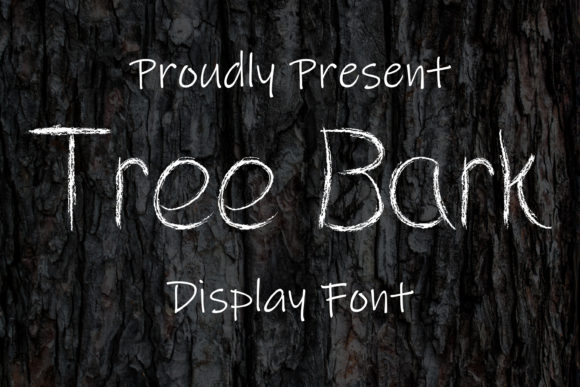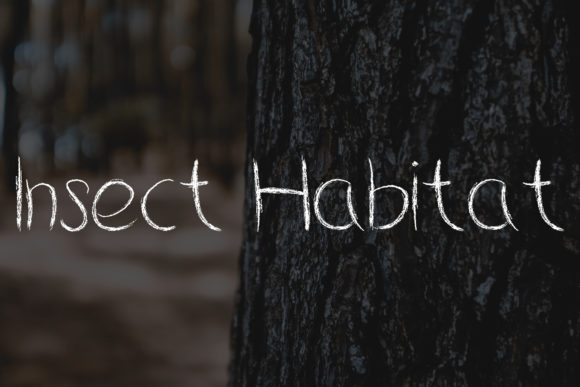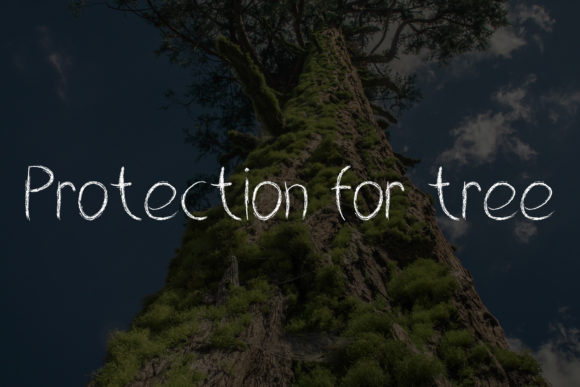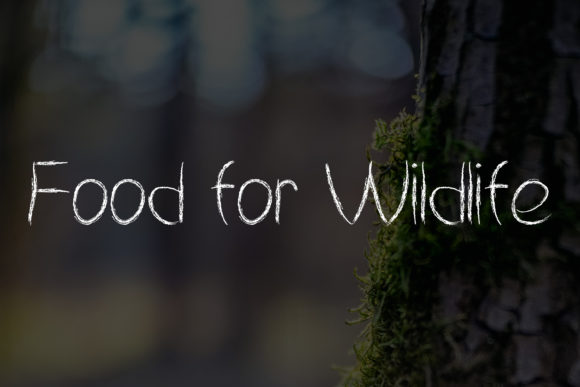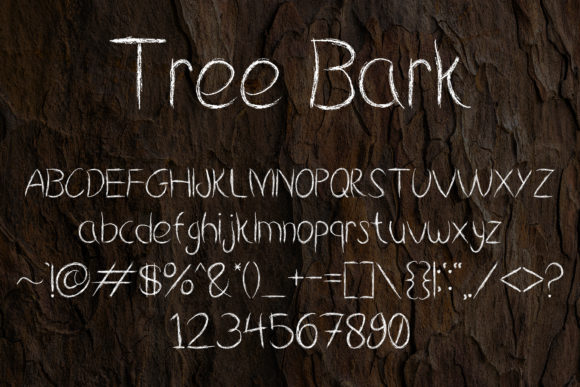
Tree Bark Font
About Tree Bark Font
Tree Bark is a neat and friendly handwritten font, that can be used for all chalkboard quotes or teaching material! Its authentic look and feel will add a personal and realistic feel to your designs.